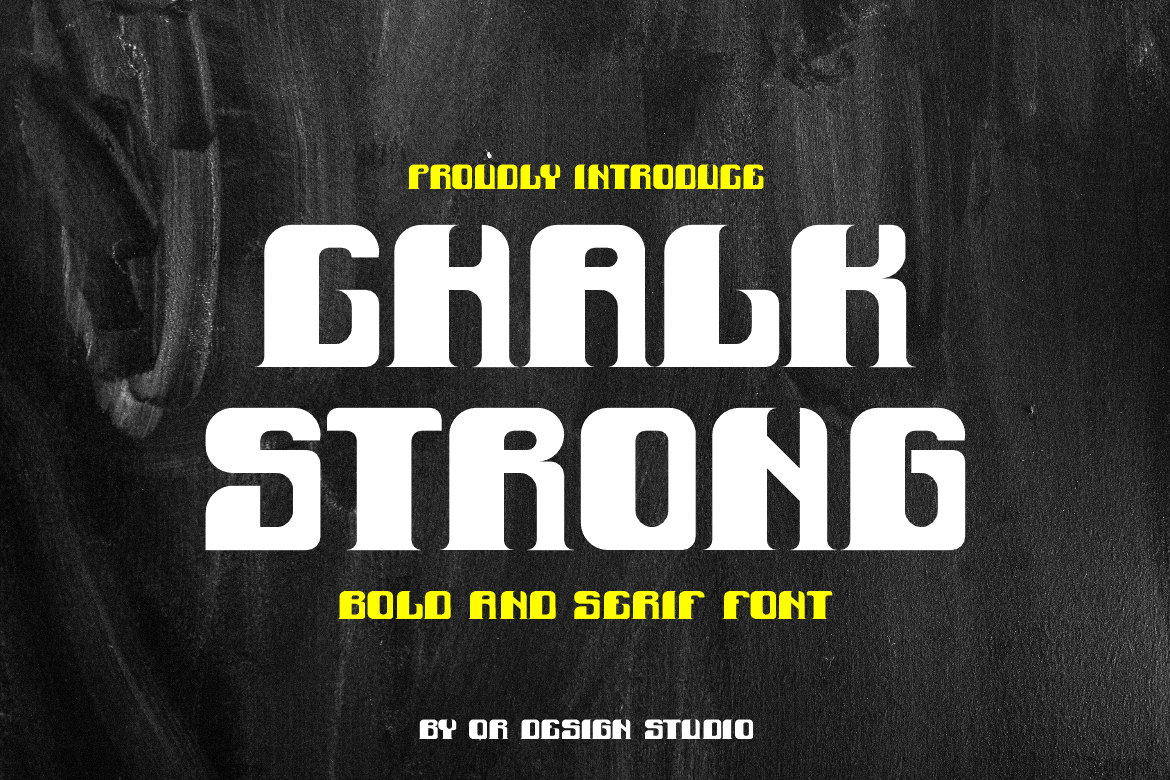
Chalk Strong Font
Chalk Strong Font is a bold and authentic display font. The font is suitable for any branding project like kids, food, poster, logo, sport, and many more. Outstanding in a wide range of contexts.